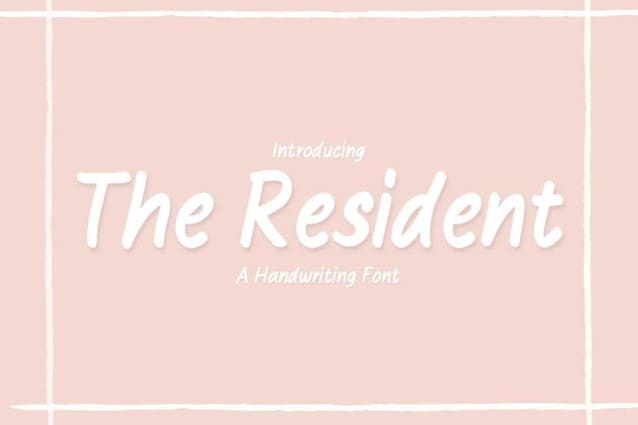
The Resident Font
The Resident Font is a simple and friendly handwritten font. Its natural and unique style makes it incredibly fitting to a large pool of designs. The only limit is your imagination!